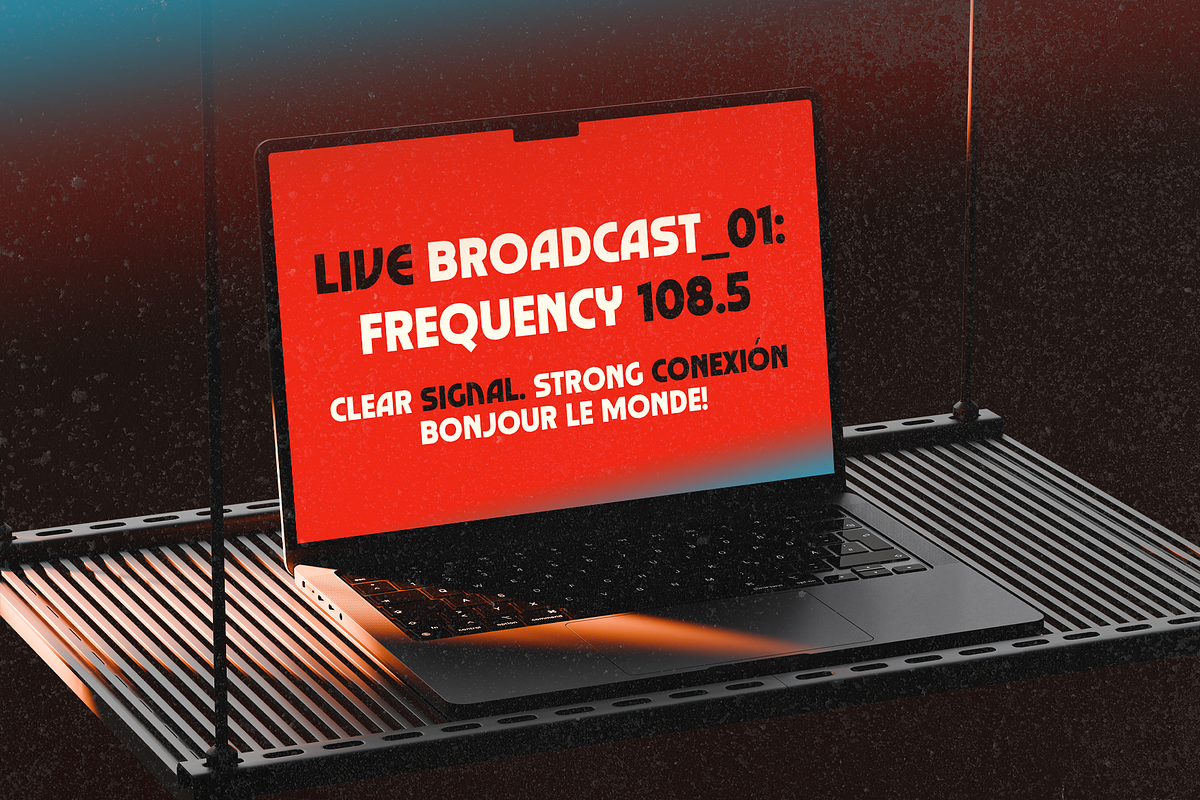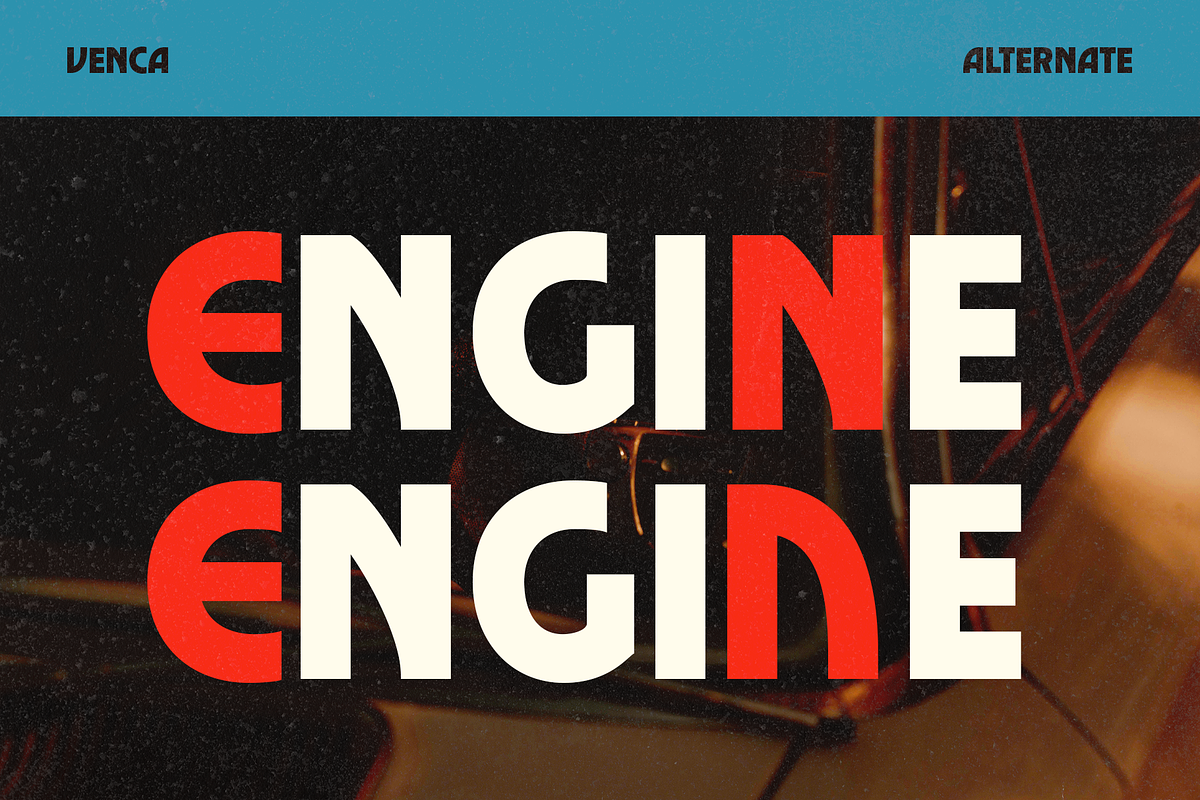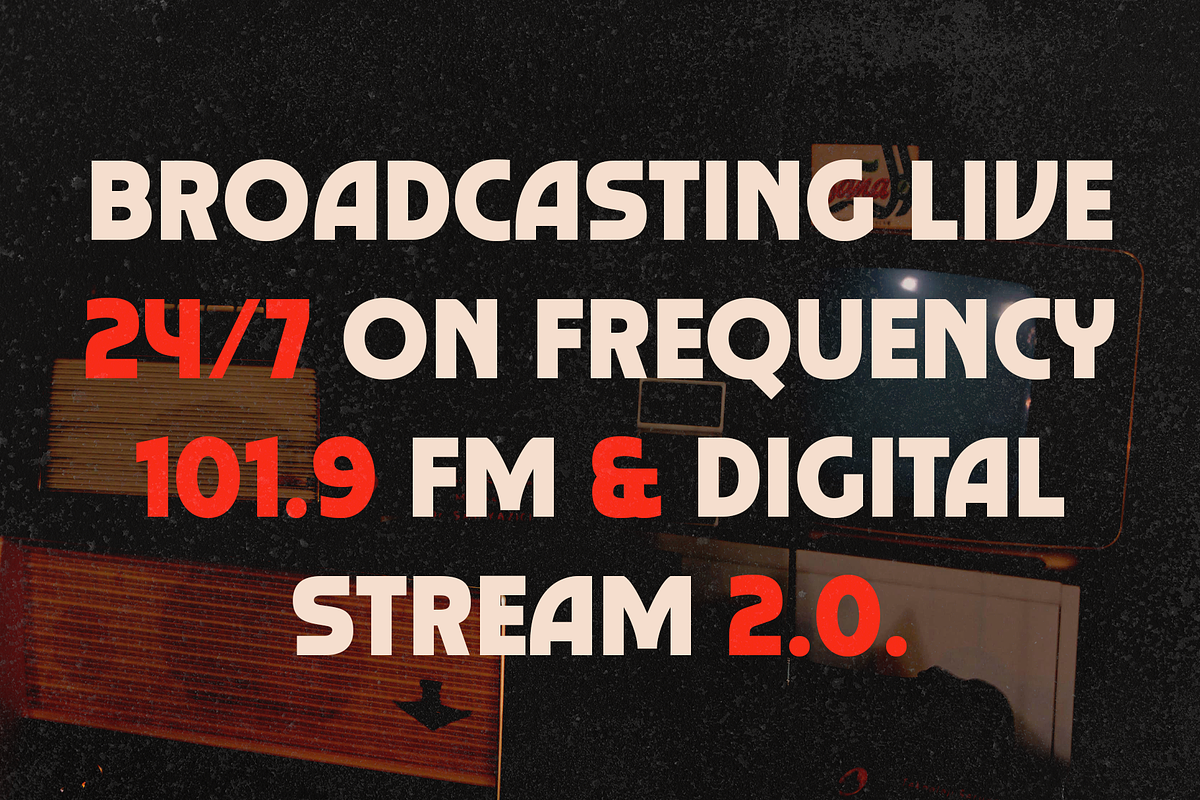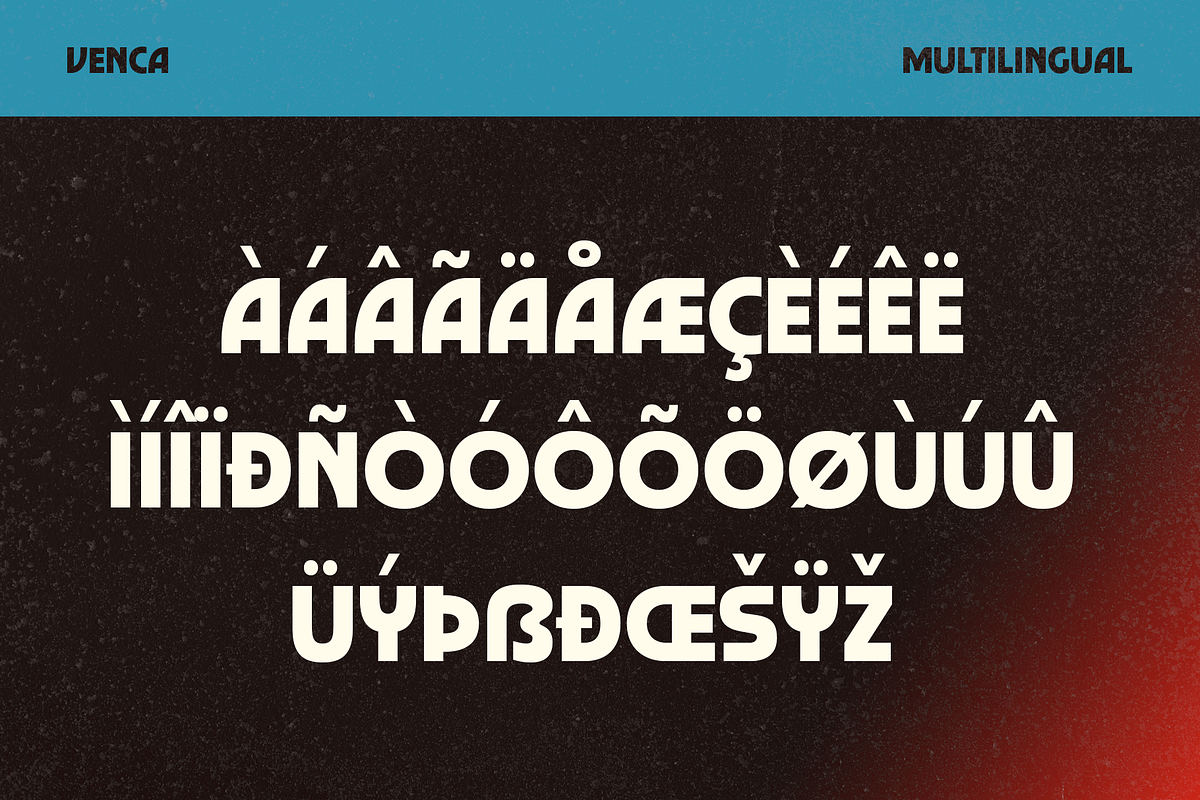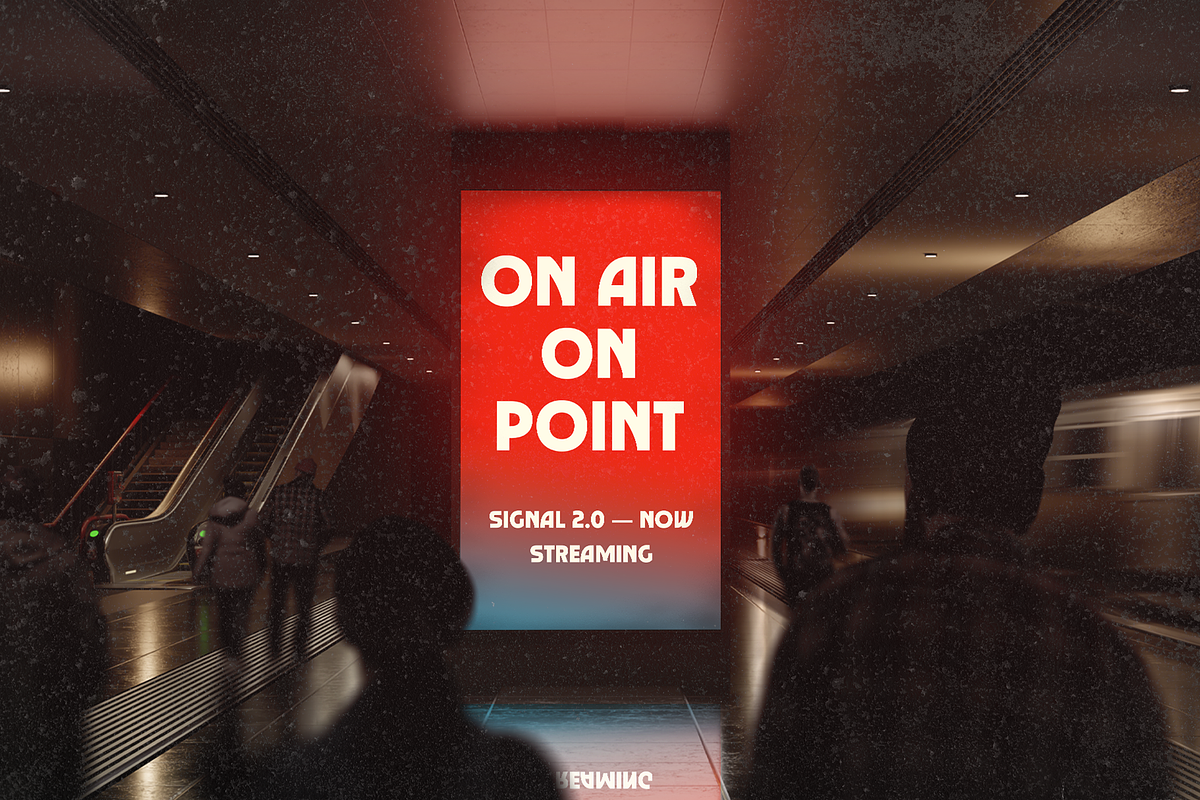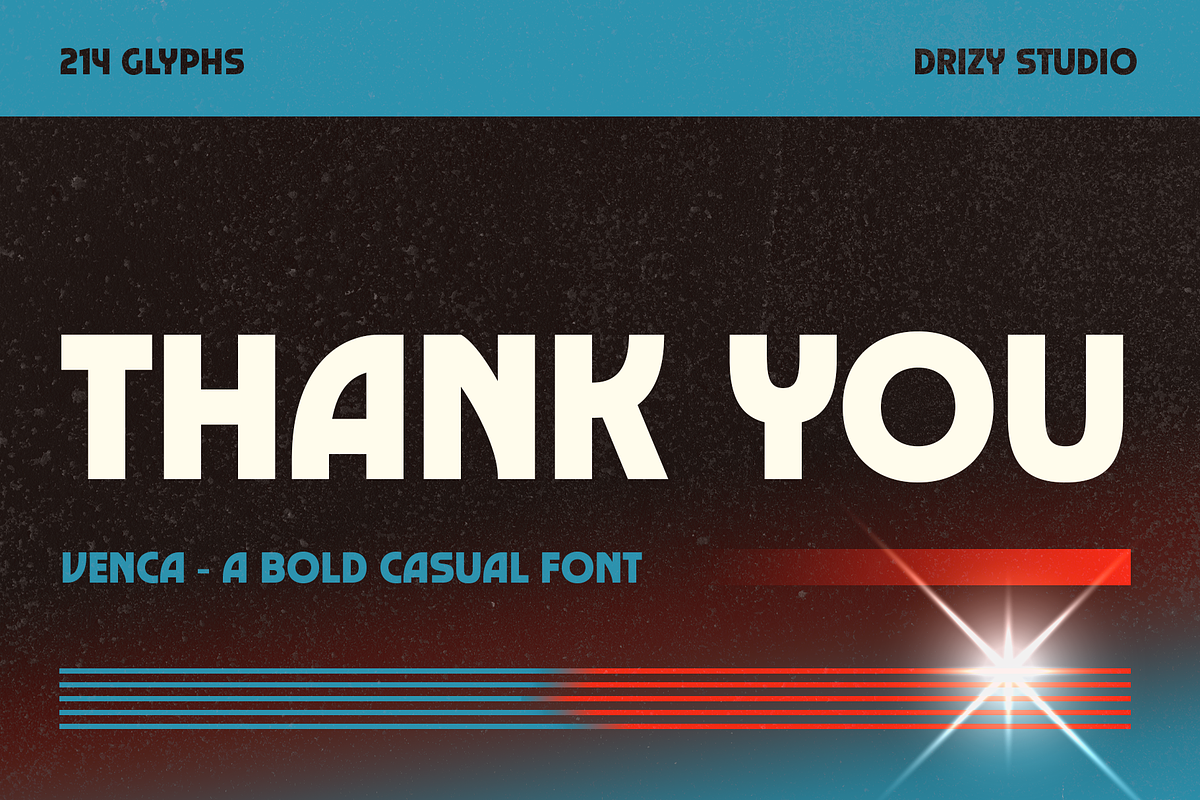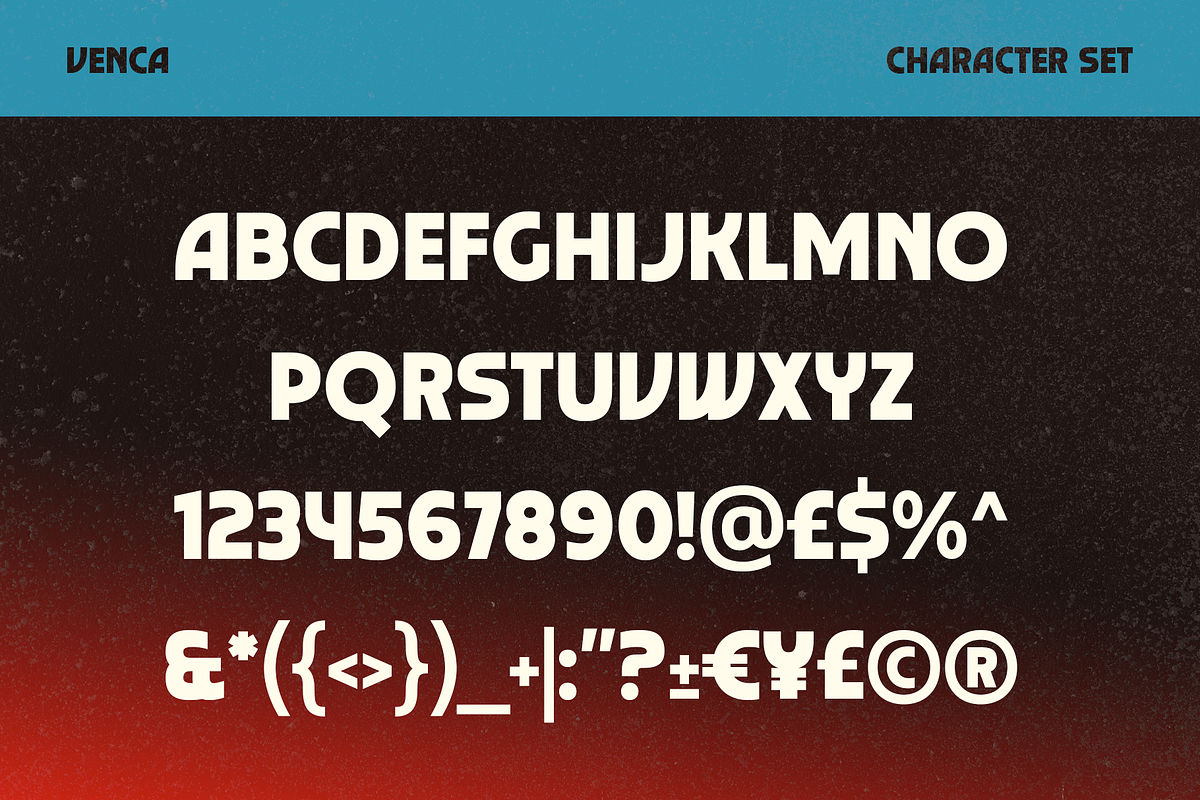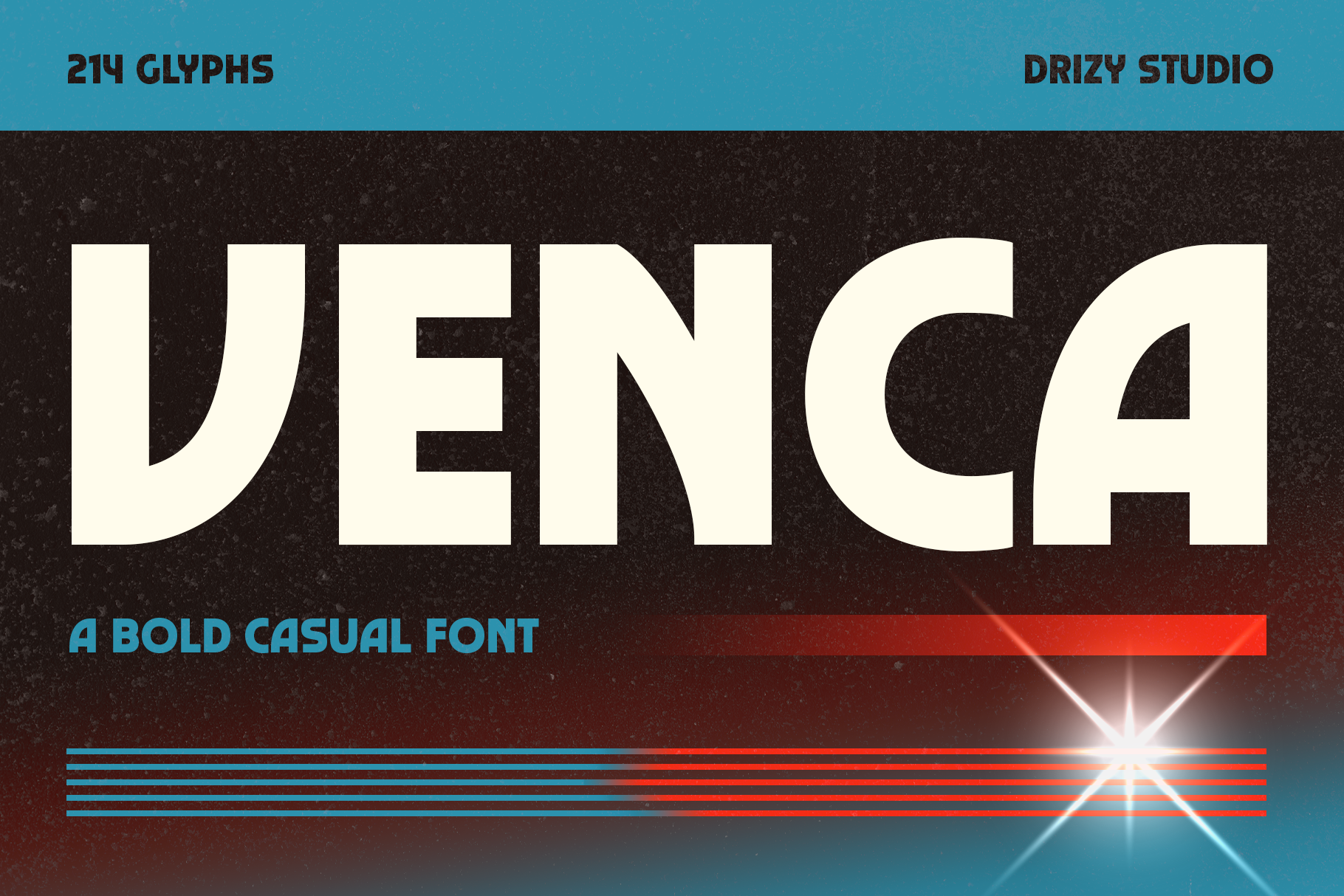
Venca – Bold Casual Font
Venca Bold is a fun and expressive casual font designed to bring a bold, friendly personality to your projects. With its thick strokes and relaxed letterforms, it delivers a perfect balance between playful charm and strong visual impact.
Ideal for branding, packaging, posters, social media, and creative headlines, Venca Bold makes your text stand out while keeping a warm and approachable feel. Whether you’re working on modern designs or cheerful themes, this font adds a confident and stylish touch to every composition.
Elevate and explore the design possibilities with this Curve Broadcast Font!